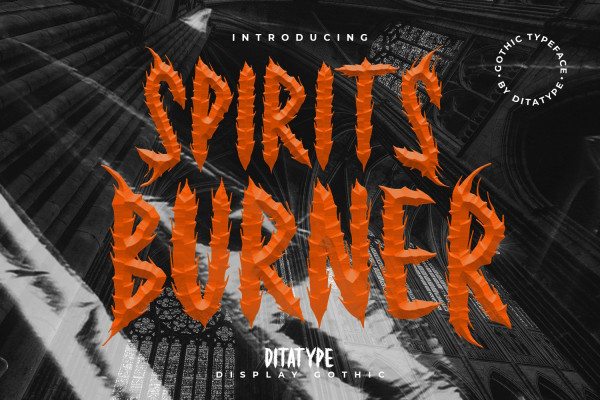
Spirits Burner Font
Spirits Burner Font is a gothic-themed display font combining the gothic characteristics with uneven edge lines and unique details to show firm, lovely, dramatic impressions. The letter shapes follow the gothic characteristics with uneven soft lines and unique details such as ornaments and decorations to add uniqueness to the design.
Dark and contrast colors add the dramatic, mysterious impressions to the font, and the uneven edge lines show your designs organic, experimental impressions, while the unique details show personal impressions. Therefore, designs with this font, which is suitable to apply for big text sizes for more legible letters, will be able to express strong, lovely impressions and will look distinct and impressive. In addition, you can enjoy the available features here.
Spirit Burner fits best for various design projects, such as brandings, quotes, printed products, merchandise, social media, etc. The font’s unique, strong characteristics are perfect for designs requiring firm, dramatic impressions, for example, music bands and products with gothic-themed markets. Find out more ways to use this font by taking a look at the font preview.